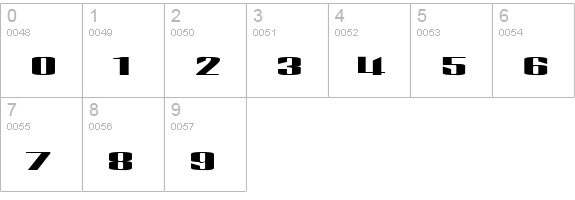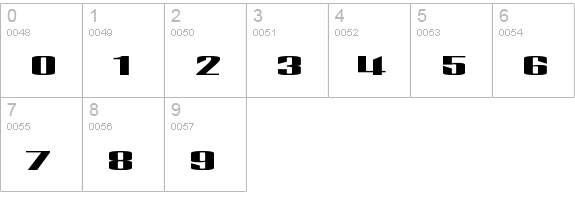
Phatboy Font Details
Introducing Phatboy font, a bold and charismatic typeface that is sure to make a statement. With its robust and eye-catching design, Phatboy is perfect for grabbing attention and adding personality to any project. This font features thick, rounded letterforms that exude confidence and strength. Each character is carefully crafted to create a harmonious balance between boldness and readability, making it suitable for a wide range of applications. Not only does Phatboy offer an impressive visual impact, but it also brings convenience to the table. This font is available for free download at FontsMarket.com, allowing you to easily access and incorporate it into your creative endeavors. Whether you're designing a striking logo, crafting attention-grabbing headlines, or simply looking to add a touch of boldness to your designs, Phatboy font is the perfect choice. Its versatility and distinctive style make it an excellent option for everything from posters and advertisements to branding materials and social media graphics. With Phatboy font, you can unleash your creativity and make a lasting impression. So why wait? Download this captivating typeface for free at FontsMarket.com and take your designs to the next level.